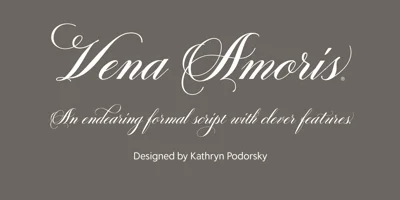
Vena Amoris Font
The Vena Amoris Font is ideal for romantic wedding invitations, love letter designs, Valentine's Day campaigns, jewelry brand identities, romantic greeting cards, couple's photography logos, bridal boutique signage, and intimate event stationery. This enchanting typeface works beautifully for wedding planners, florists, romantic restaurants, engagement photographers, luxury spas, and businesses specializing in love-themed products and services.
What makes the Vena Amoris Font exciting is its deeply romantic essence that captures the timeless beauty of true love. The font features flowing, heart-inspired letterforms with delicate curves and passionate flourishes that evoke the ancient belief in "vena amoris" - the vein of love connecting directly to the heart. Its intimate character and emotional warmth create an immediate connection with romantic sentiments, making every design feel personal and heartfelt. The font's graceful elegance transforms ordinary text into love letters.
The Vena Amoris Font family includes romantic variations: Regular, Light, Bold, Script, Ornamental, and Decorative versions. Each style maintains the font's passionate character while offering different levels of romantic intensity and design flexibility. The family also features heart-shaped ornaments, love symbols, and romantic ligatures that enhance wedding and love-themed projects.
Whether you're designing wedding materials, creating romantic brand identities, or developing love-inspired marketing campaigns, the Vena Amoris Font provides the perfect solution for projects requiring emotionally resonant typography. This extraordinary typeface brings authentic romantic expression to design work, making it an essential resource for designers specializing in love, romance, and wedding industries.